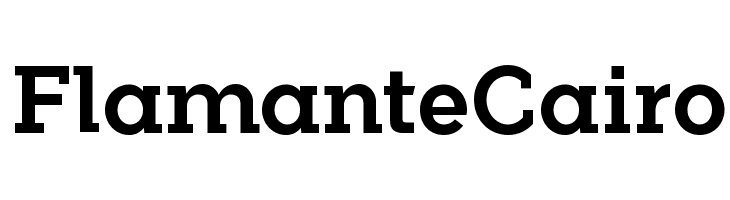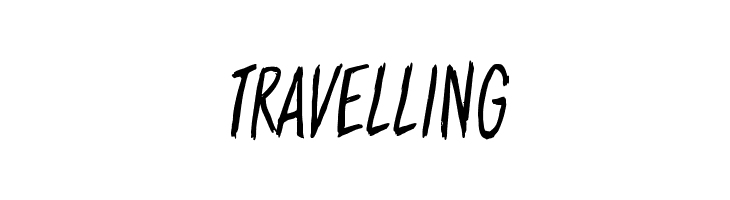
( Vladimir Nikolic - www.coroflot.com/vladimirnikolic )
A bold, 3D neon-style italic font with a dynamic and modern look.
( Vladimir Nikolic - www.coroflot.com/vladimirnikolic )
A bold and expressive brush script font with a hand-painted look.
( Woodcutter - woodcutter Manero - www.woodcutter.es )
A bold, dripping font with a spooky, horror-themed aesthetic.
( Ydhra Studio - creativemarket.com/ydhra )
A clean, elegant script font with flowing cursive letters and a sophisticated style.
( Zetafonts - www.zetafonts.com )
A bold, serif font with a modern yet classic style, featuring pronounced serifs and strong letterforms.
( Zetafonts - www.zetafonts.com )
A bold, modern sans-serif font with a compressed width and clean, geometric design.
( Zetafonts - www.zetafonts.com )
A bold, modern typeface with clean lines and geometric shapes.
( Zetafonts - www.zetafonts.com )
A bold, heavy, italic font with a modern and dynamic style.
( deFharo - Fernando Haro - defharo.com )
A bold, modern font with clean lines and a strong presence.